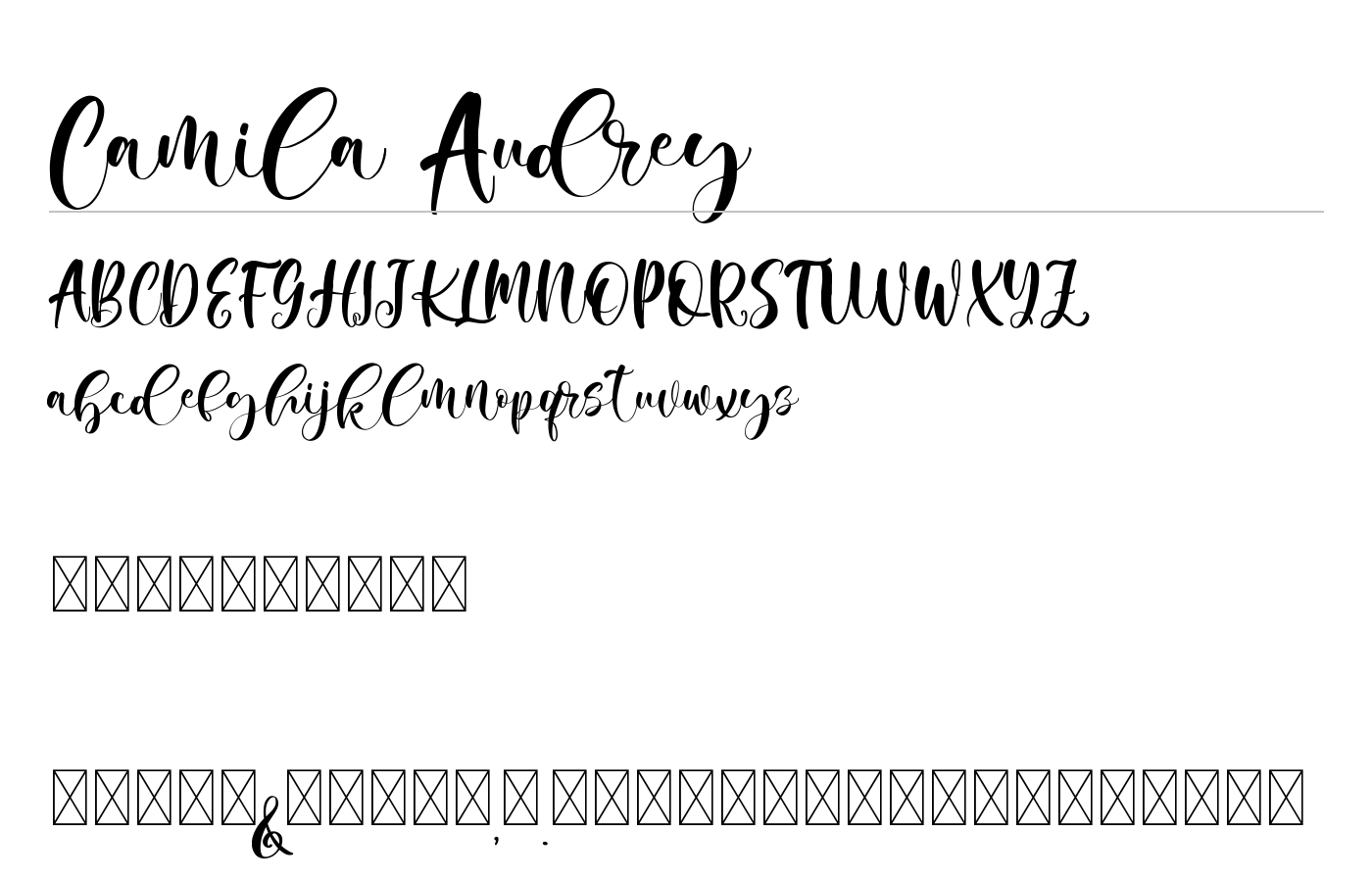
Camila Audrey is an elegant script font with flowing, hand-drawn strokes that combine a modern calligraphic style with playful charm. Its smooth, connected letterforms and varying stroke thickness evoke a warm, personal feel, making it ideal for invitations, branding, and creative projects seeking a stylish yet approachable touch. This font works especially well in displays and headlines where a sense of grace and personality is desired.
Camila Audrey Font
About Camila Audrey Font
| Font family | Camila Audrey Font |
| Designer | M Arif Dwi Prasetyo & Eko Nurcahyo |